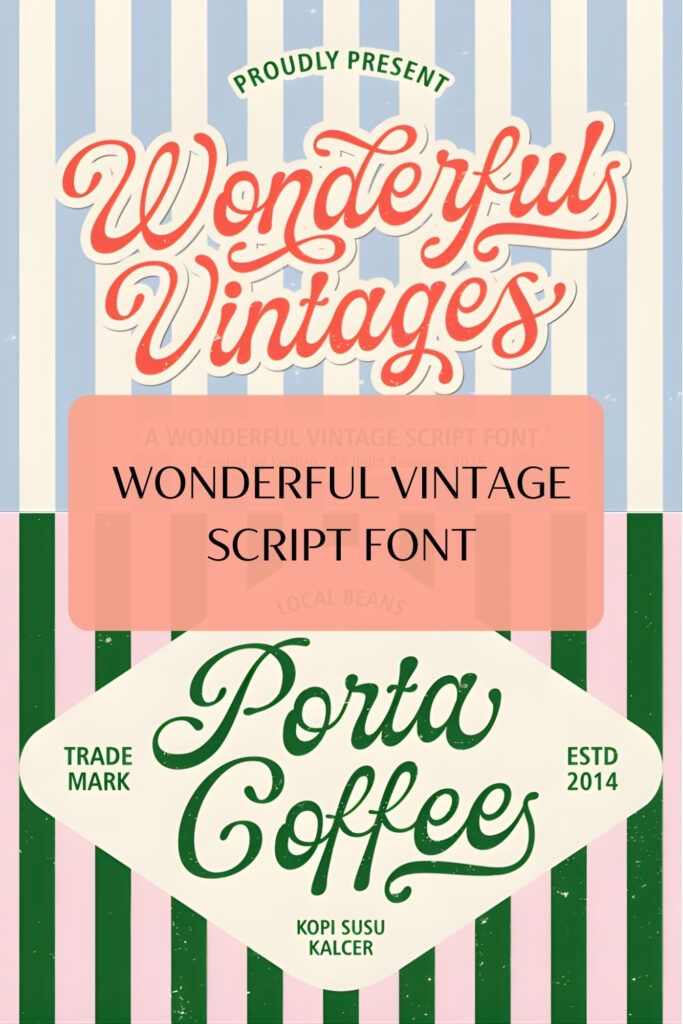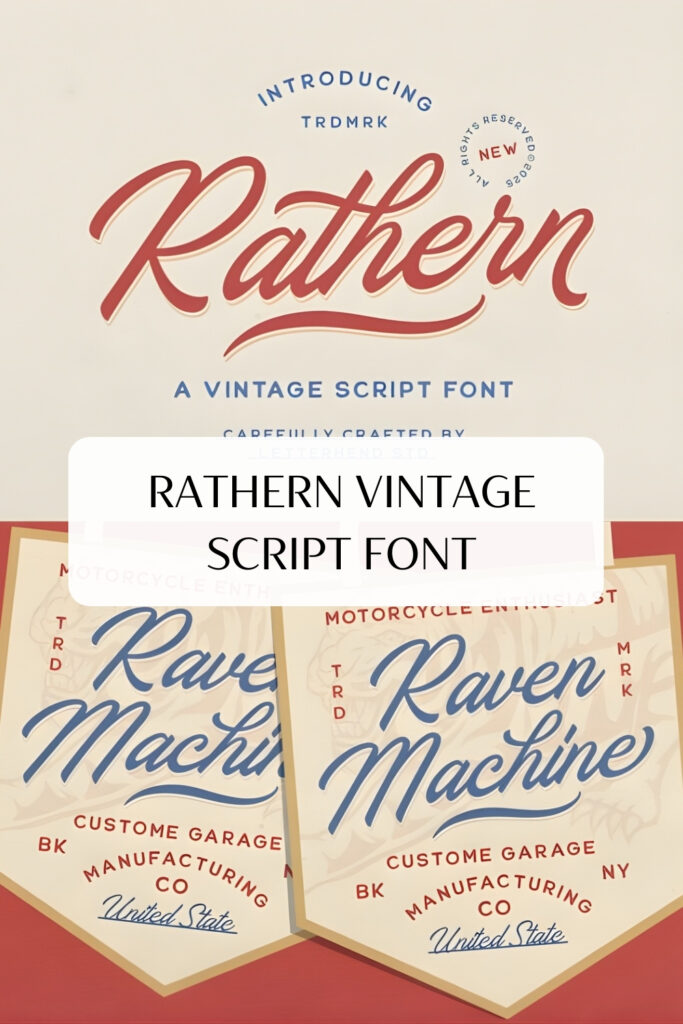
16 Exquisite Vintage Script Font Picks for Timeless Design Projects
As a designer, I know that the right Vintage Script Font can transform a generic layout into a soulful masterpiece. Finding that perfect balance between nostalgia and legibility is an art form. In this curated list, I’ve gathered my top 16 personal favorites to help you elevate your branding and creative projects with authentic, old-school charm.
1. Wonderful Vintage Script Font
There is something incredibly soulful about the golden era of typography, which is why I’m so excited to share “Wonderful Vintages.” This Vintage Script Font is my personal tribute to the hand-lettered signage of the 1950s and 60s, blending rhythmic strokes with that unmistakable old-school charm to add a touch of nostalgia to any digital design. I’ve found that whether I’m working on evocative vintage art or high-energy retro scripts, this typeface provides an impeccable fusion of sophistication and fun. Its polished, rhythmical strokes make it a fantastic choice for traditional branding, classical packaging, or even just adding a bit of character to your social media content.
I’ve made sure this Vintage Script Font is as functional as it is beautiful, embodying the golden era of classic typography through a broad character set of uppercase, lowercase, numerals, and symbols. To help you tackle global projects without any language constraints, it comes equipped with extensive multilingual support. The lines are sleek and precise, making the font ideal for high-grade print layouts or neat cutting with machines like Cricut and Silhouette. From vintage apparel and T-shirt designs to wedding invitations and café branding, I designed this font to be your ultimate storyteller, infusing an elegant touch of the past into your contemporary workspace.
2. Rathern Vintage Script Font
When I’m looking to capture that specific charm of hand-painted lettering from the golden era of sign painting, Rathern is the Vintage Script Font I find myself returning to. It has this beautiful way of blending bold curves with an elegant flow, making every character feel like it was crafted with a brush and a steady hand. Its smooth strokes and subtle retro detailing are perfect when I’m designing logos, packaging, or posters that need to feel nostalgic yet refined. There is a confident, stylish presence to this typeface that delivers a timeless vibe while keeping the design full of unique character.
As a designer, I really appreciate that this Vintage Script Font is as functional as it is aesthetic. It comes fully loaded with uppercase and lowercase letters, numbers, punctuation, and essential alternates and ligatures to give your typography that custom feel. Plus, it includes multilingual support and is PUA encoded, so you can easily access all those extra flourishes in any software. Whether you are working on a high-end branding project or a simple vintage-inspired layout, Rathern provides that classic, hand-crafted look that never goes out of style.
3. Horseman Vintage Script Font
When I’m in the mood for something a bit more playful and spirited, I always find myself reaching for Horseman. This Vintage Script Font is the definition of “funky,” bringing a vibrant energy to any canvas while maintaining that classic, timeless style we all love. What really sets it apart for me are the beautiful swashes that add an effortless sense of movement and flair to your headlines or logos. It’s one of those typefaces that doesn’t just sit on the page—it actually tells a story, and I’m constantly getting inspired by how it manages to feel both retro and refreshingly unique at the same time.
I’ve found that this Vintage Script Font is perfect for projects where you want to break away from the traditional and inject a little personality into your branding. Whether you’re designing a retro-themed poster or a standout piece of social media content, Horseman’s swashes provide that hand-drawn, custom feel that is so hard to replicate. It’s a fantastic reminder that vintage doesn’t always have to be serious; it can be bold, groovy, and full of life. If you’re looking to give your next creative assignment a soul of its own, this font is definitely a must-have in your collection.
4. Outdoors Signature Vintage Script Font
When I’m working on a project that needs a rugged, hand-crafted feel, I often turn to Outdoors Signature. This Vintage Script Font is incredibly versatile because it doesn’t just come as a single file; it features five distinct styles—Clean, Rough, Rust, Halftone, and Stamp. I love being able to combine these different textures to create outstanding crafting projects that feel authentic and layered. Whether I’m designing a logo for an outdoor brand or a unique signature for a client, this font family provides a raw, organic energy that is hard to find elsewhere.
As a designer, I’ve found that this Vintage Script Font has the power to elevate a wide range of projects to the highest level. It’s a fantastic choice for everything from bold headings and rustic labels to delicate wedding designs and elegant invitations. There is something about the “Stamp” and “Rust” versions that adds an immediate sense of history and craftsmanship to any brand identity. If you are looking to inject a bit of the great outdoors into your branding or logos, this font is the perfect tool to make your creative work stand out.
5. Rhampdone Vintage Script Font
Every designer knows that finding the perfect balance between legibility and high-end flair is a challenge, but Rhampdone makes it look effortless. This Vintage Script Font strikes a gorgeous chord between traditional copperplate calligraphy and contemporary hand-lettering, resulting in a typeface that feels both glamorous and remarkably easy to read. I often find that its smooth, clean lines and feminine curves are exactly what’s needed to bring a sense of “sensual” sophistication to a digital workspace. It is a simple yet powerful way to ensure your design doesn’t just communicate a message, but also conveys a polished, stylish personality.
Conclusion
Choosing the perfect Vintage Script Font is about more than just aesthetics; it’s about capturing a specific mood and history. I hope this selection inspires you to experiment with new textures and swashes in your next design. Whether you are crafting a logo or an invitation, these fonts will ensure your work stands out with timeless elegance and character.